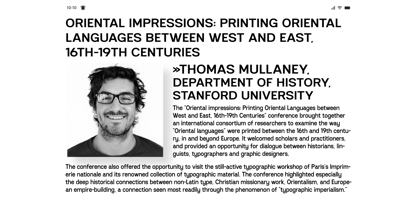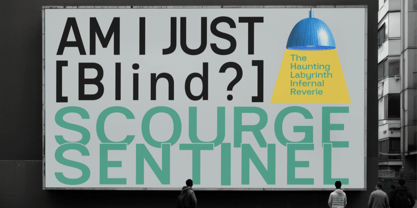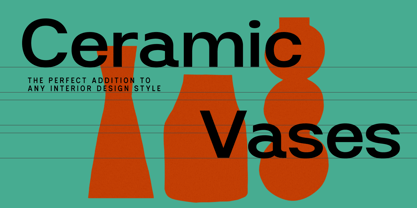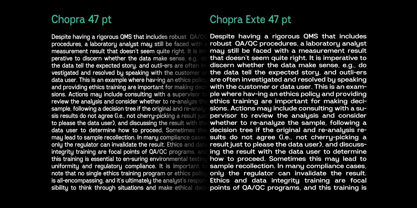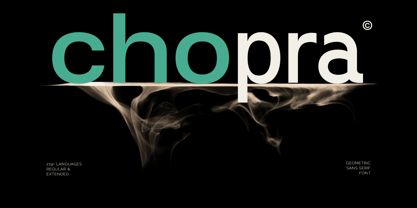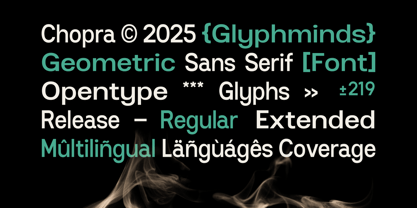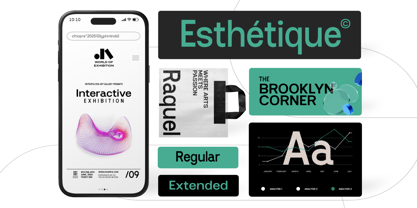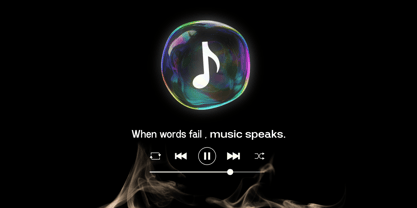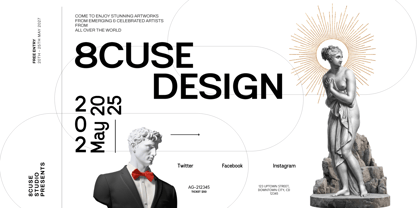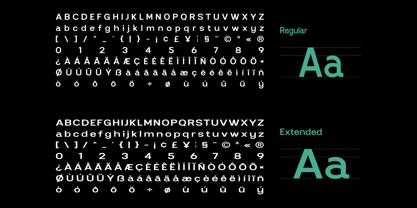
Chopra
The Chopra Font Family was designed by Baliya Ibnu Bi Malkan and published by Glyphminds Studios. Chopra contains 2 styles and family package options. More about this family
Introducing Chopra – a sleek, modern Geometric Sans Serif font designed for creators who crave precision and elegance. With its clean lines and perfectly balanced characters, Chopra is ideal for branding, logos, websites, packaging, and editorial design. It supports 219+ languages and comes in both Regular and Extended styles, making it highly versatile for global reach.
What makes Chopra stand out is its minimalist aesthetic fused with subtle sophistication—think timeless yet trendy. Whether you’re crafting a fashion label, launching a tech startup, or curating a polished online presence, Chopra gives your project the modern edge it deserves.